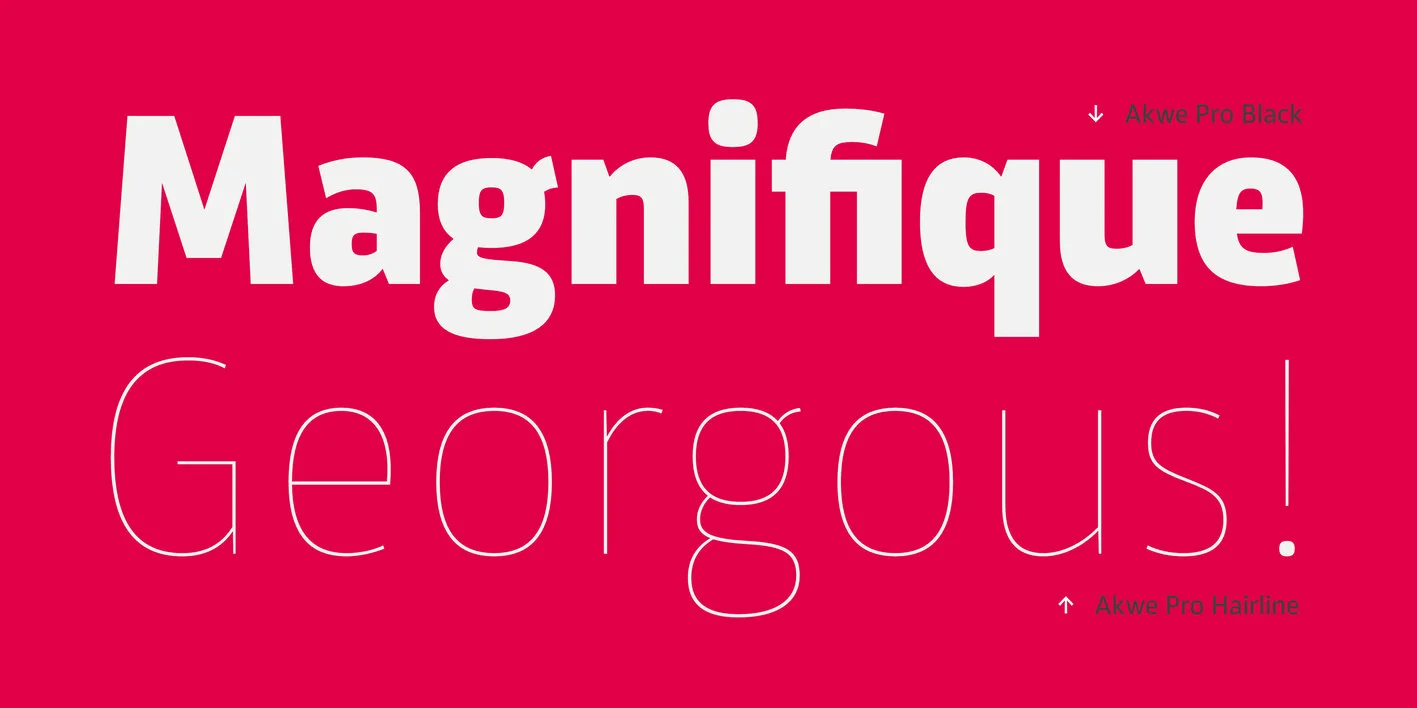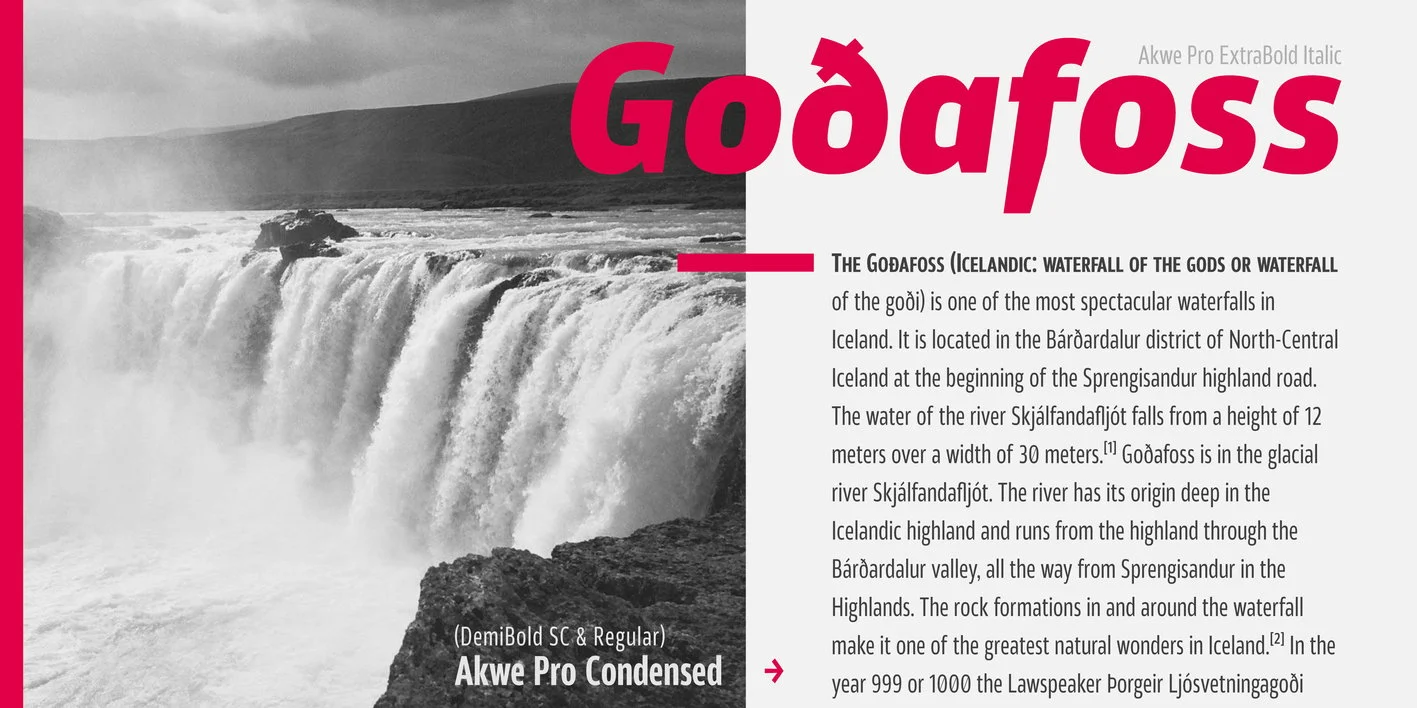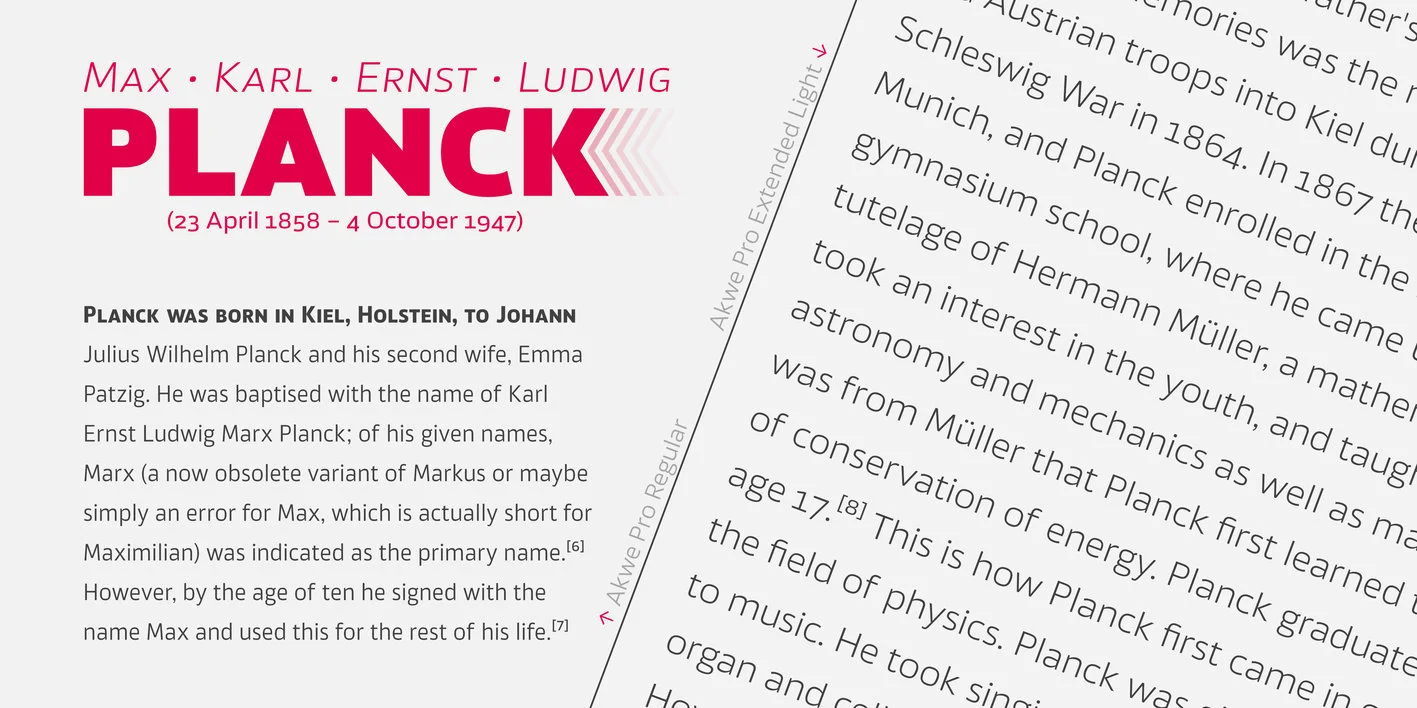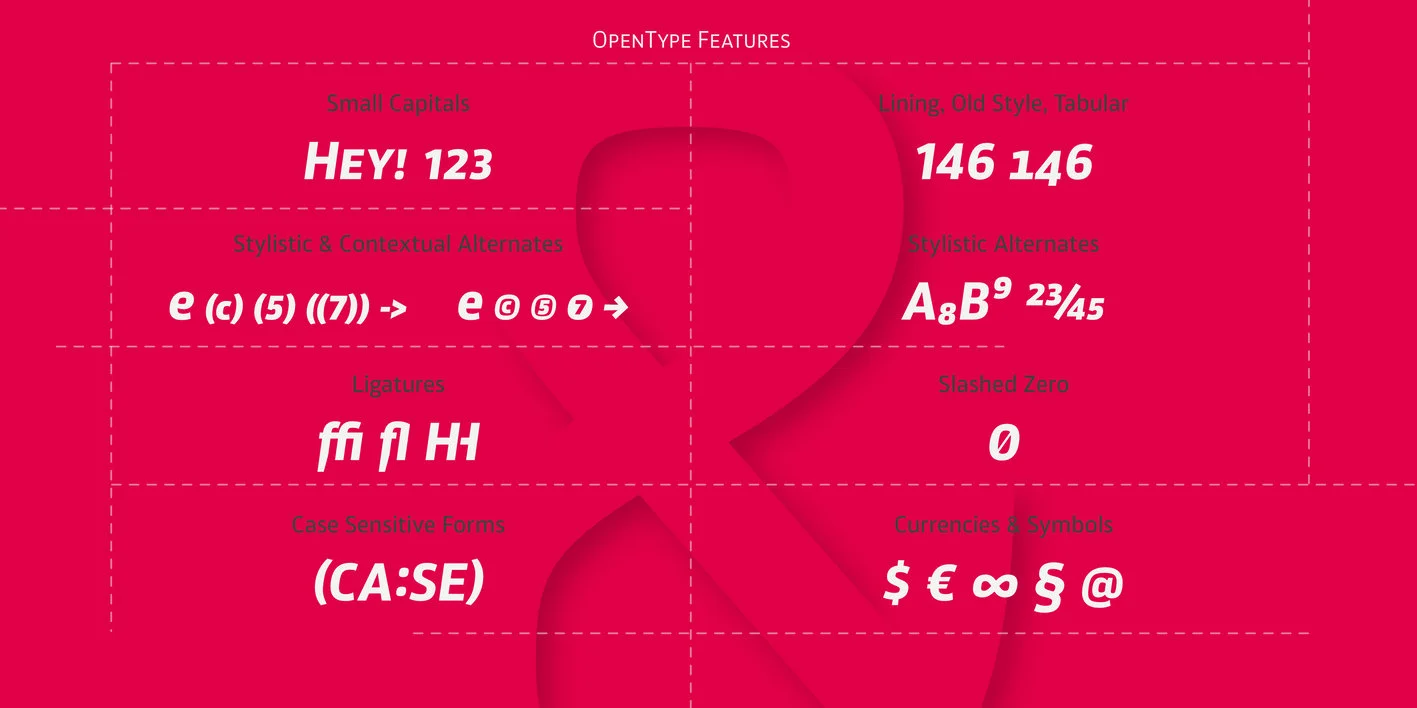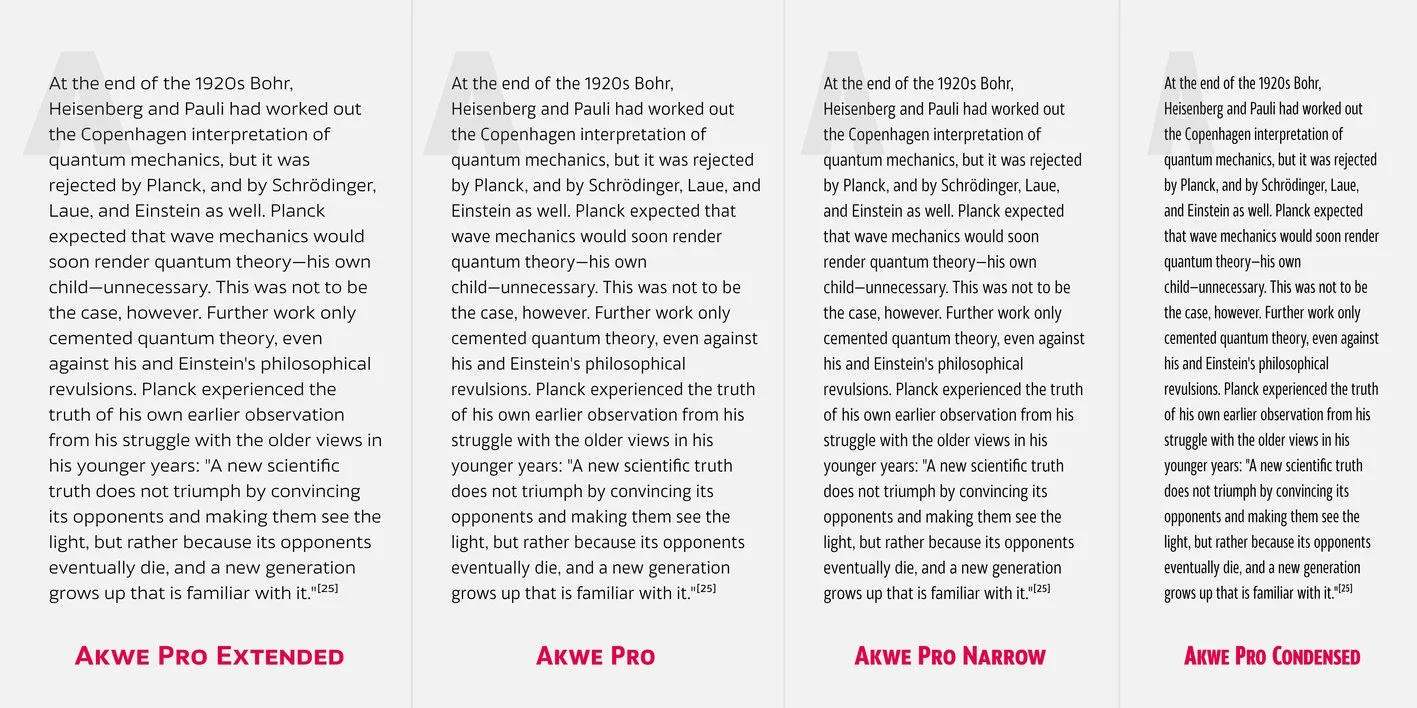
Akwe Pro Font
There is a particular satisfaction in finding a typeface that delivers a confident voice that adapts to diverse briefs without compromise. Akwe Pro consistently provides it. The typeface brings a versatile sensibility to a broad range of creative disciplines, with visual harmony and precise spacing that holds up whether the work is print-first or screen-first.
In practice, Akwe Pro proves particularly effective for web design, environmental graphics, annual reports, editorial layouts, packaging design. Designers reaching for it find that the type decisions feel resolved rather than laboured — a useful quality when client timelines are tight.
The range of applications extends to logo design, advertising campaigns, poster creation, brand identity systems. That breadth is deliberate: the proportions and spacing were stress-tested across a wide range of mock briefs before the typeface was finalised.
Pairing Akwe Pro with a contrasting serif or a neutral grotesque gives mixed-format layouts a clear visual grammar without requiring constant size adjustments to establish hierarchy.
Independent studios handling packaging and editorial work find Akwe Pro a reliable choice for projects that demand both personality and restraint. The design avoids the self-conscious quirkiness that dates quickly, settling instead for considered distinctiveness that holds up over time.